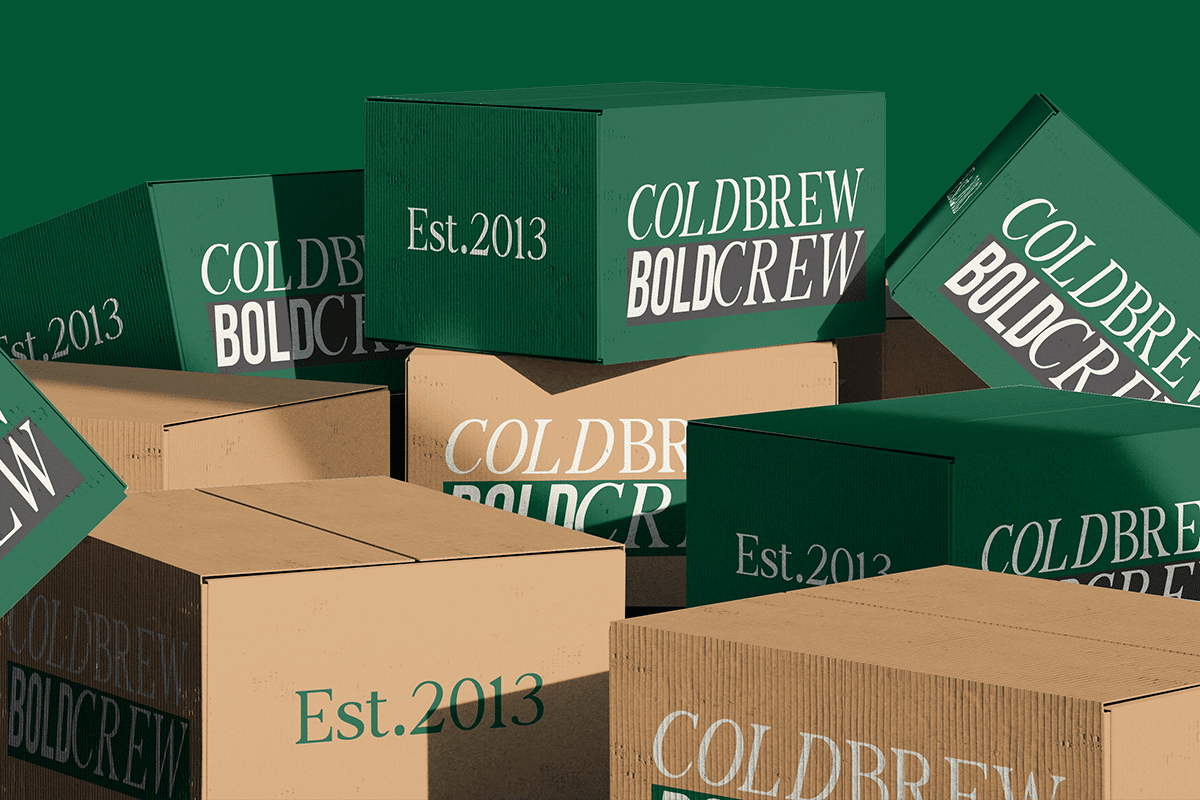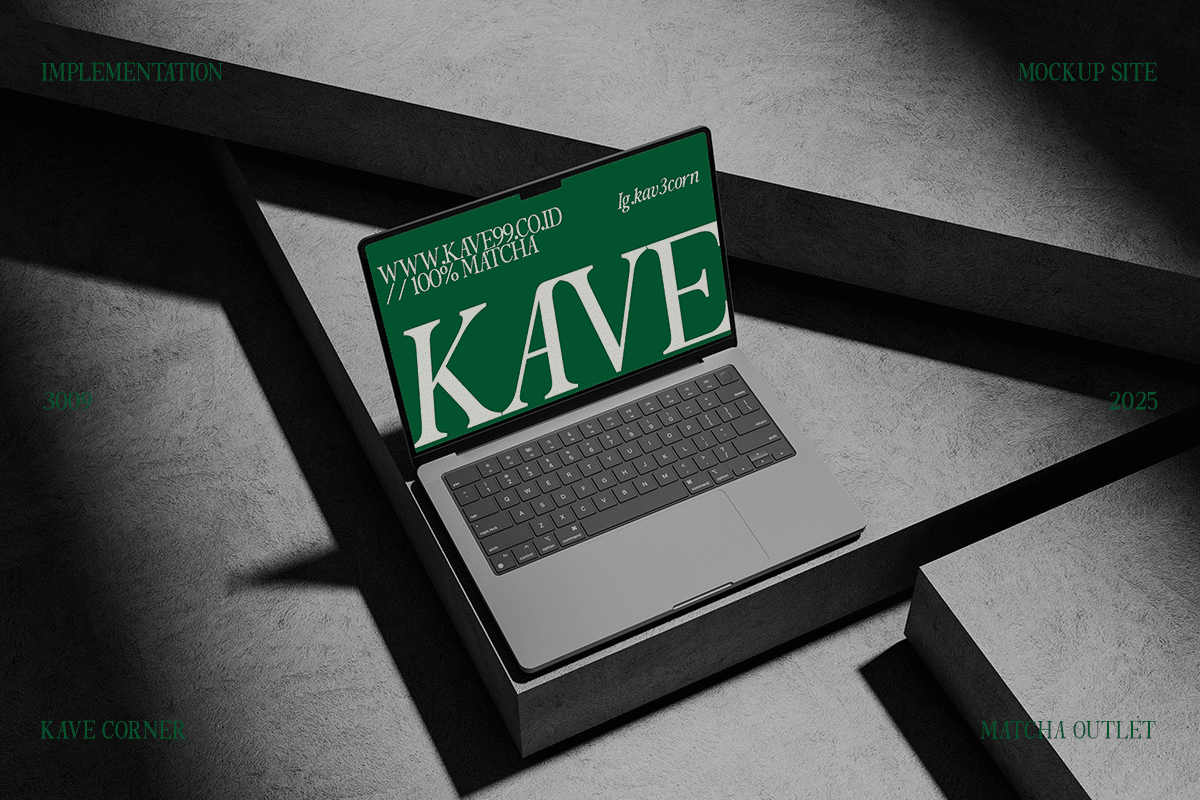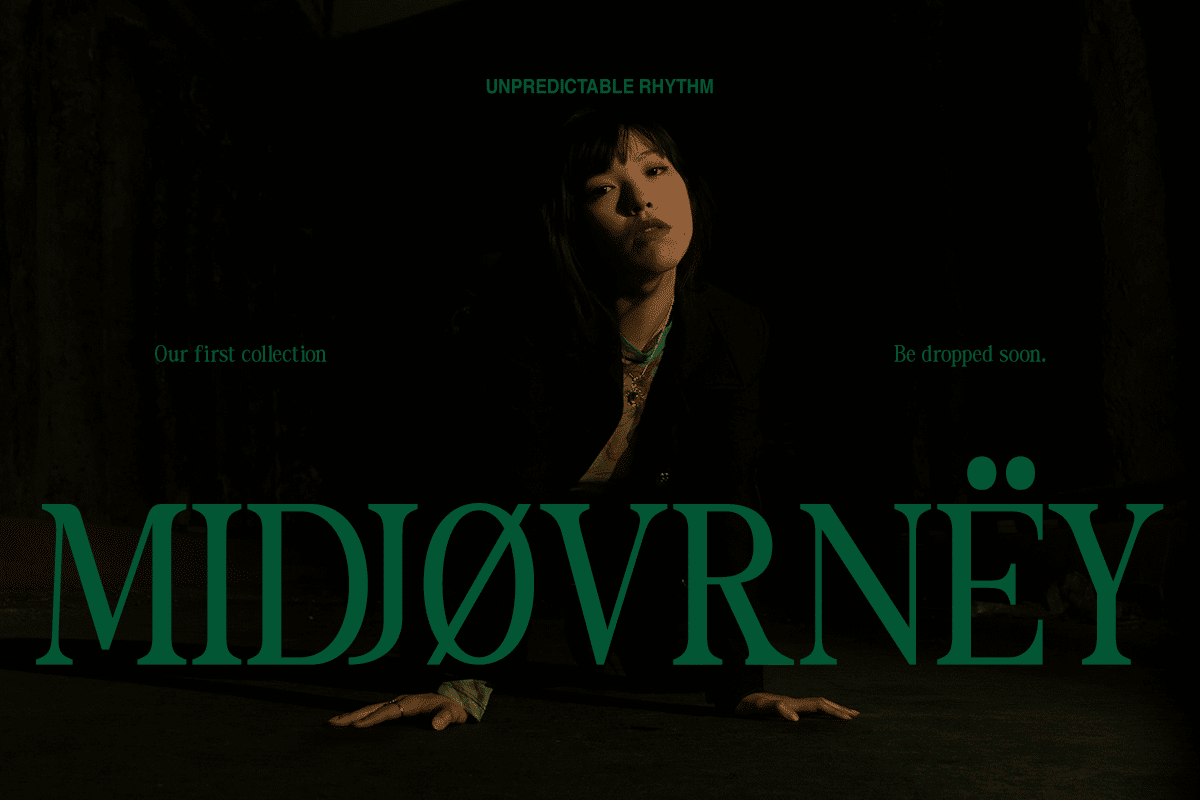
The Foriene Elegant Serif Font
The Foriene Elegant Serif Font is a refined typeface that blends sophistication with a timeless editorial spirit. Featuring high-contrast strokes, sharp yet graceful serifs, and balanced proportions, this font exudes elegance and professionalism. The italic variant enhances its expressive style, making it perfect for branding, magazines, fashion layouts, and luxurious visual identities. Designed with attention to detail, The Foriene captures a sense of confidence and modern refinement in every character.
Relevance and Use Cases is perfect for editorial layouts, magazine headlines, fashion branding, luxury packaging, creative posters, modern logos, and sophisticated visual projects that emphasize elegance and timeless style.